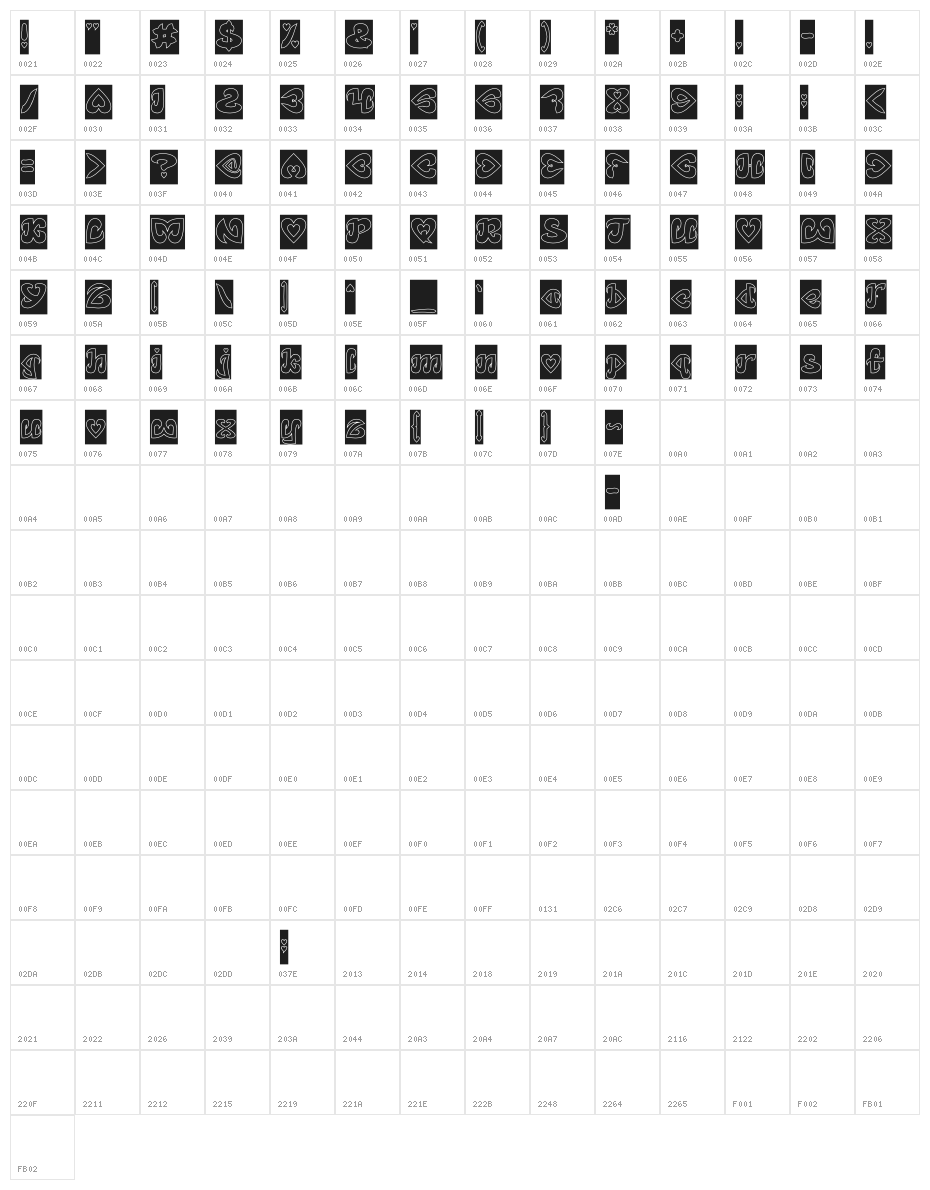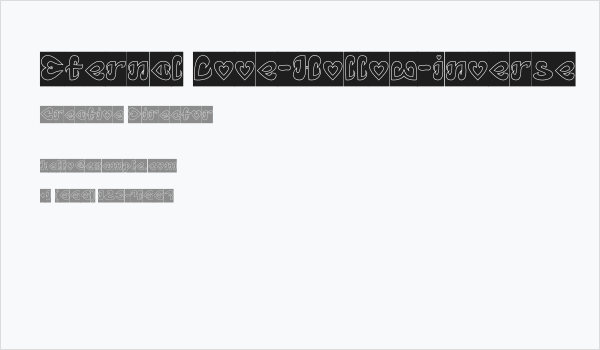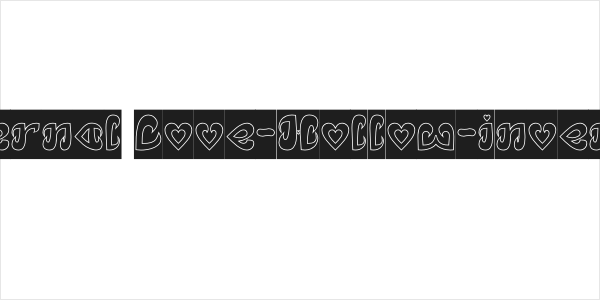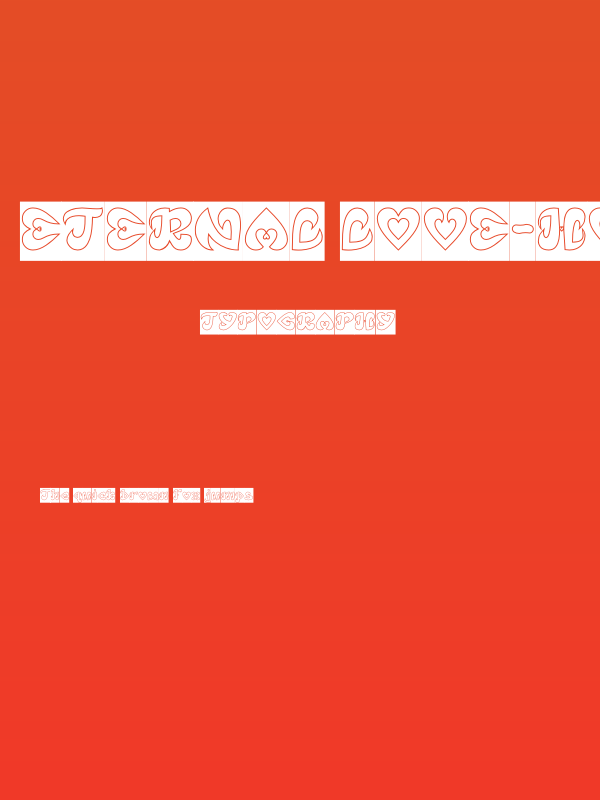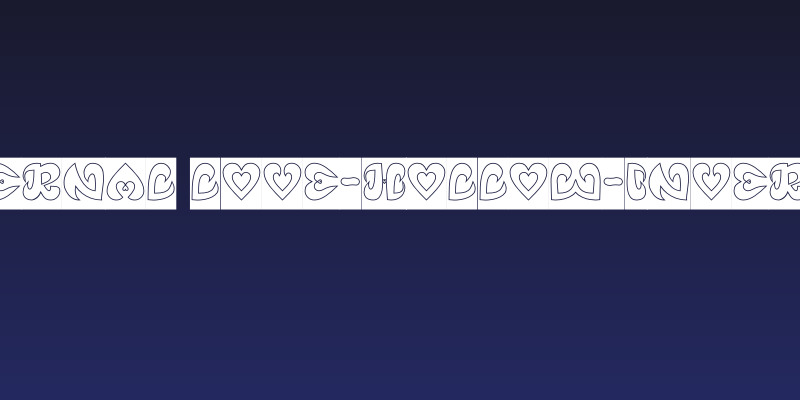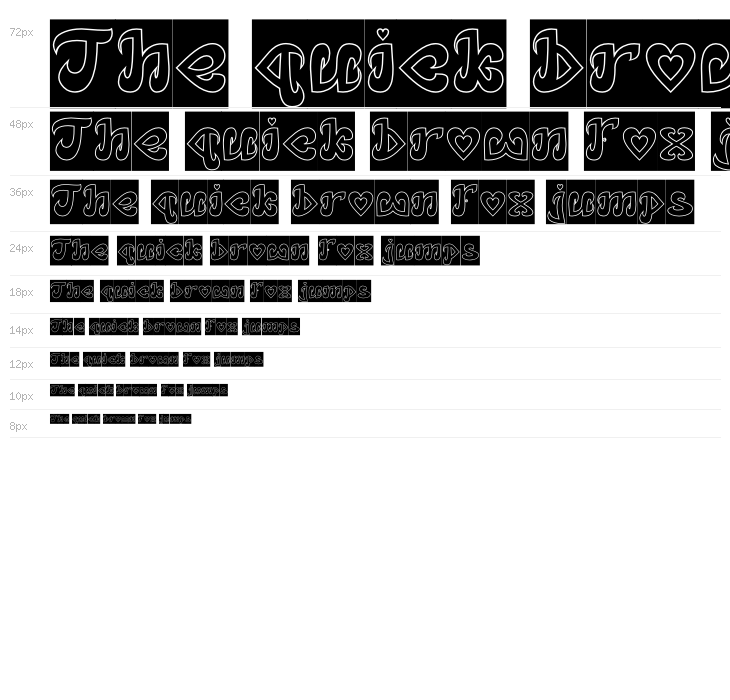
Eternal Love-Hollow-inverse Font
Eternal Love-Hollow-inverse Description
This font features a playful and romantic design, with each character incorporating heart shapes and hollow outlines. The letters are bold and decorative, making them stand out with a whimsical charm. The uppercase and lowercase letters maintain a consistent style, with curves and loops that enhance the font's romantic theme. Numbers and special characters follow the same heart-themed design, ensuring a cohesive look across all elements. The font's unique style makes it ideal for projects that require a touch of love and creativity.
| Proposed Projects | Ideal for wedding invitations, Valentine's Day cards, romantic event posters, and love-themed merchandise. |